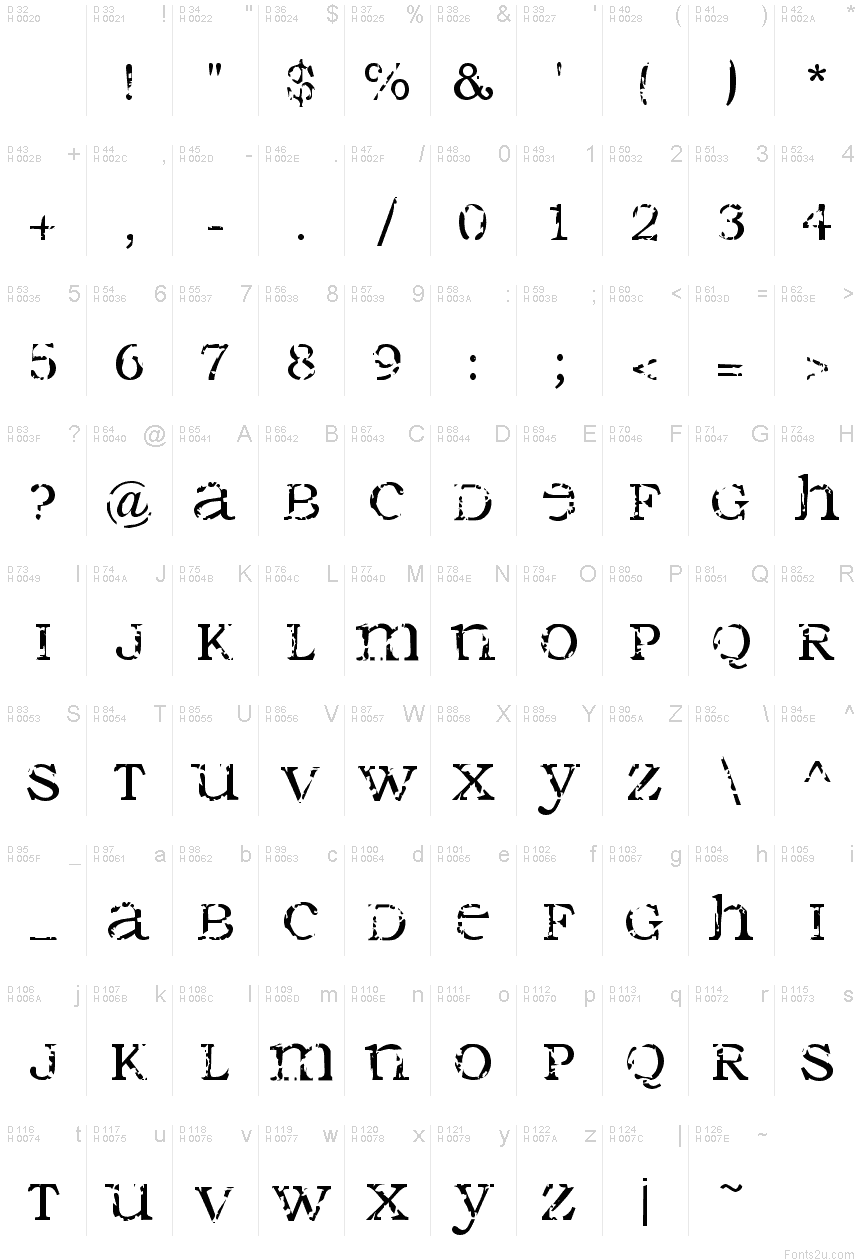
Seraphim
Seraphim by Utopiafonts is a free eroded serif display font with a weathered, almost crumbling presence. Its letters mix broad classical serif shapes with rough missing patches and chipped edges, so the old-style form never feels formal for long.
That makes Seraphim a natural pick for posters, book covers, music artwork, title cards, and moody branding where age and wear are part of the mood. As a free font, it works best in short lines, mastheads, and dramatic initials, because the distressed cuts give even familiar words a bruised, timeworn voice.